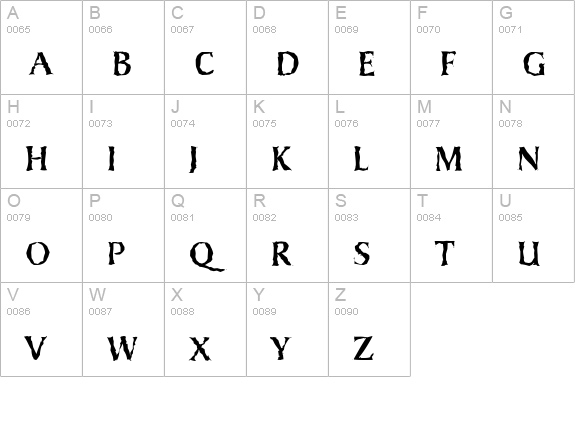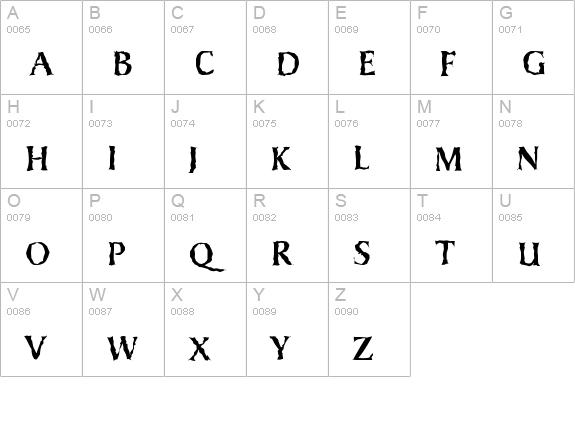
SydneyRandom-Regular Font Details
SydneyRandom-Regular is the standard, neutral variant in the SydneyRandom typeface family \xE2\x80\x94 well suited to general body text, paragraphs, and standard typographic work.
SydneyRandom-Regular font is a charming and versatile typeface that exudes a sense of casual elegance. With its playful yet sophisticated design, this font is perfect for a wide range of design projects, from branding to packaging to social media graphics. Featuring a unique hand-drawn style with irregular strokes and quirky details, SydneyRandom-Regular font adds a touch of personality and whimsy to any text or headline. Its flowing and dynamic letterforms create a sense of movement and energy, making it ideal for adding a creative flair to your designs. Best of all, SydneyRandom-Regular font is available for free download at FontsMarket.com. Whether you're a professional designer looking to expand your font library or a hobbyist seeking a fresh and distinctive typeface, this font is sure to inspire your creativity and help you stand out from the crowd. Download SydneyRandom-Regular today and unleash your design potential!